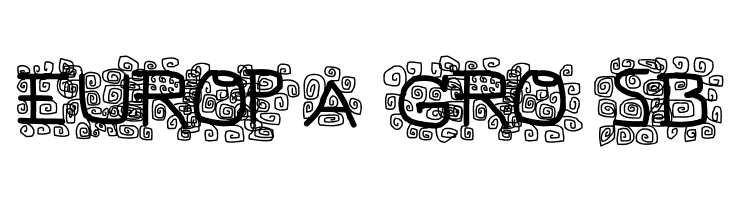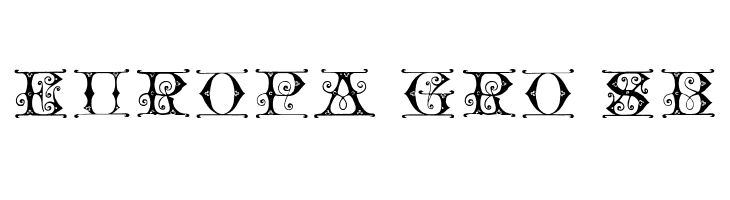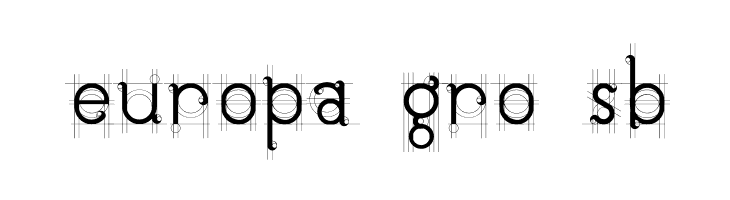
A decorative and geometric font with intricate line work and a modern artistic style.
A decorative font with intricate, blueprint-like designs and high contrast strokes.
An intricate, blueprint-inspired font with detailed, decorative elements.
Ornate, decorative initials with intricate frames and a vintage style.
An ornate and decorative font with intricate swirls and a semi-expanded width.
An ornate, decorative font with intricate patterns reminiscent of medieval manuscripts.